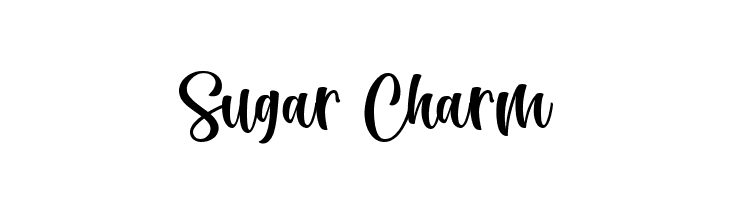
A bold, playful script font with a brush-like, handwritten style.
A lively, elegant script font with flowing, interconnected strokes and a modern twist.
A dynamic, brush-style handwritten font with expressive strokes.
A dynamic, brush-style font with expressive, handcrafted strokes.
A bold, handwritten-style font with expressive, dynamic curves.
A bold, handwritten font with a brush-like texture and dynamic style.